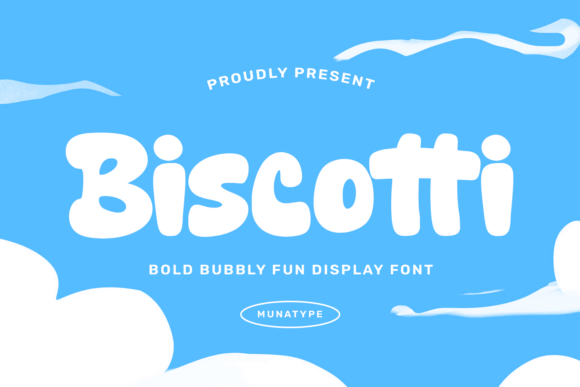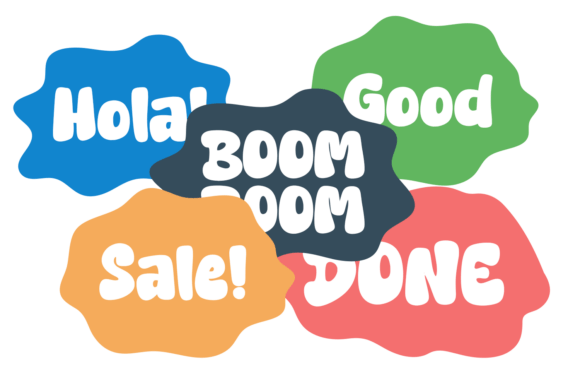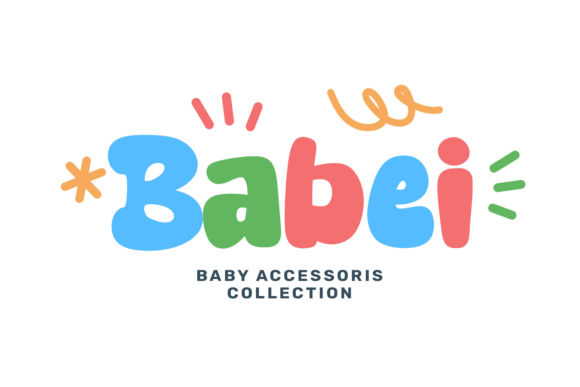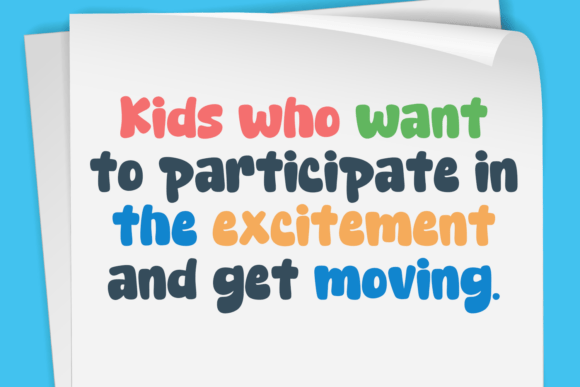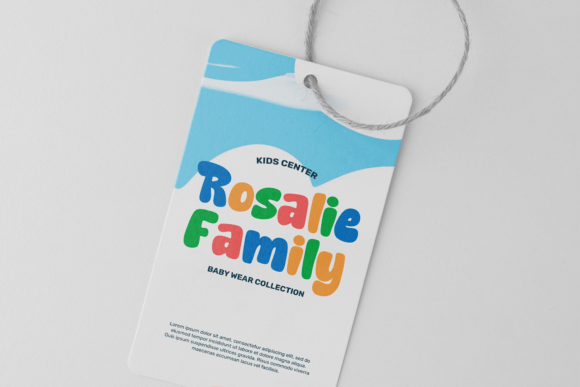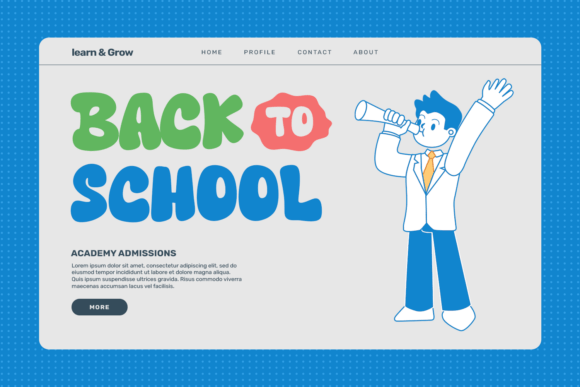
Biscotti Font: The Sweetest Addition to Your Design Projects
Are you looking for a font that can add a touch of warmth and coziness to your designs? Look no further than the Biscotti font, a sweet handwritten display font that blends cuteness with a touch of artisanal flair. Designed to spark joy and warmth, this font is perfect for designers and crafters who want to add a friendly, handcrafted feel to their creative projects.
The Characteristics of Biscotti Font
Biscotti font is characterized by its soft, rounded strokes and playful letterforms, making it a perfect choice for designs that want to feel cozy, inviting, and full of character. Its approachable style makes it especially suited for cute logos, dessert shop menus, drink labels, café branding, and bakery packaging. The font’s friendly and attention-grabbing style enhances handmade labels, gift packaging, and other creative projects.
Perfect for Food and Beverage Promotions
Biscotti font is a natural match for food and beverage promotions, particularly those that feature sweet treats. Its whimsical and playful style makes it perfect for dessert shop menus, bakery packaging, and drink labels. The font’s soft and rounded strokes evoke a sense of freshness and charm, making it ideal for promoting food and beverage products.
Whimsical Packaging Designs
Biscotti font is also perfect for whimsical packaging designs that require a touch of personality. Its friendly and approachable style makes it suitable for packaging designs that feature handmade or artisanal products. The font’s playful letterforms and soft strokes add a touch of charm to any packaging design, making it stand out from the crowd.
Cute Logos and Branding
Biscotti font is an excellent choice for creating cute logos and branding materials. Its friendly and attention-grabbing style makes it perfect for businesses that want to convey a sense of warmth and approachability. The font’s soft and rounded strokes make it suitable for businesses that feature handmade or artisanal products.
Versatility in Print and Digital Media
Biscotti font is crafted for versatility, working beautifully in both print and digital media. Its friendly and approachable style makes it perfect for use in flyers, product tags, digital banners, and other marketing materials. The font’s soft and rounded strokes ensure that it remains legible and clear, even at small sizes.
A Natural Match for Custom Crafts
Biscotti font is a natural match for custom crafts, embroidery, and cutting machine projects like Cricut or Silhouette. Its friendly and attention-grabbing style enhances handmade labels, gift packaging, and other creative projects. The font’s soft and rounded strokes make it perfect for use in custom crafts that require a touch of personality.
Biscotti font is a sweet and charming addition to any design project. Its friendly and approachable style makes it perfect for designers and crafters who want to add a touch of warmth and coziness to their creations. With its versatility in print and digital media, Biscotti font is an excellent choice for a wide range of design projects, from food and beverage promotions to whimsical packaging designs and custom crafts.